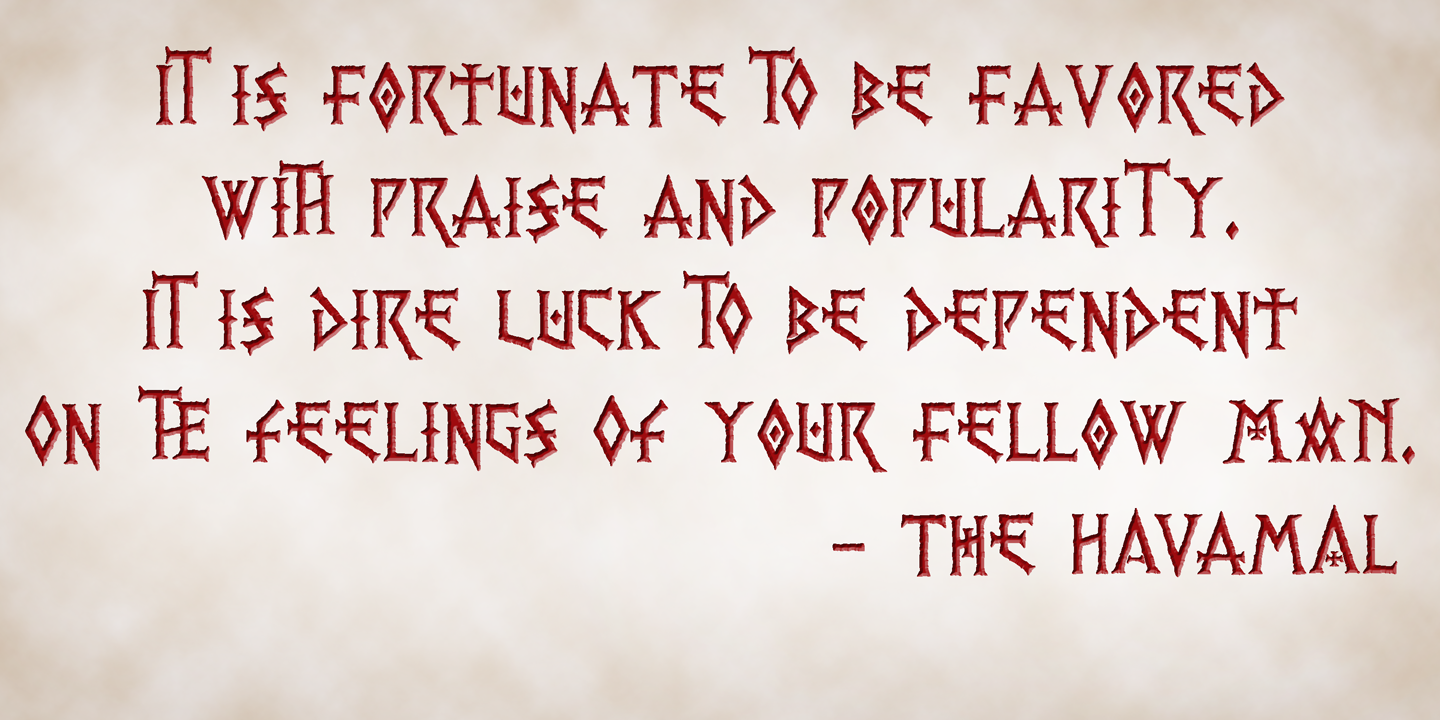
PR Viking Font is perfect for Norse mythology publications, medieval restaurant branding, fantasy game titles, metal band logos, historical Viking exhibitions, Scandinavian cultural centers, warrior-themed fitness brands, medieval festival promotions, Nordic heritage museums, adventure tourism campaigns, craft brewery labels, and epic storytelling projects. This powerful typeface brings authentic Viking warrior spirit to projects requiring legendary strength and Norse cultural authenticity.
What makes PR Viking Font so exciting is its extraordinary ability to channel the fierce warrior spirit and legendary strength of Norse culture through boldly carved letterforms that seem forged in the fires of Valhalla. The font features monumentally crafted characters with runic influences and battle-hardened edges that embody the raw power and indomitable will of Viking warriors. Its commanding presence conveys courage and conquest while maintaining excellent readability, making it perfect for brands seeking to communicate strength, adventure, and the epic grandeur of Norse mythology with authentic Scandinavian heritage.
The PR Viking Font family includes multiple warrior weights and runic variations that showcase its Norse character while providing comprehensive design flexibility for various Viking and medieval applications. Each variant maintains the original's legendary strength while offering extensive options for creating epic typographic compositions that honor Viking traditions and warrior values.
Whether you're developing adventure brand identities, creating Norse cultural materials, or designing epic communications, PR Viking Font Free Download offers the perfect combination of Viking authenticity and contemporary functionality. This exceptional typeface brings genuine Norse warrior spirit to design projects, making it an indispensable choice for designers seeking typography that effectively communicates legendary strength, adventure, and the epic saga of Viking heritage with authentic Scandinavian power.